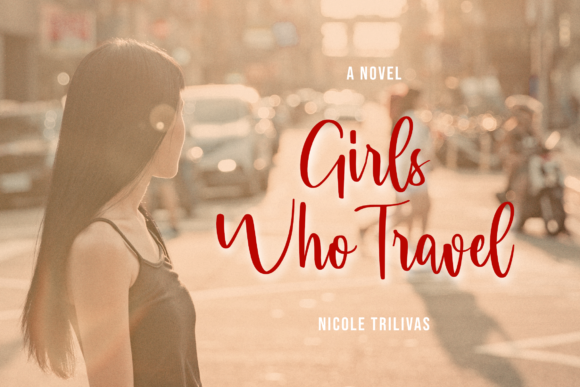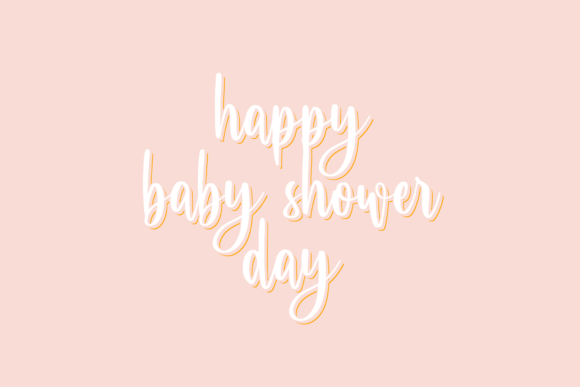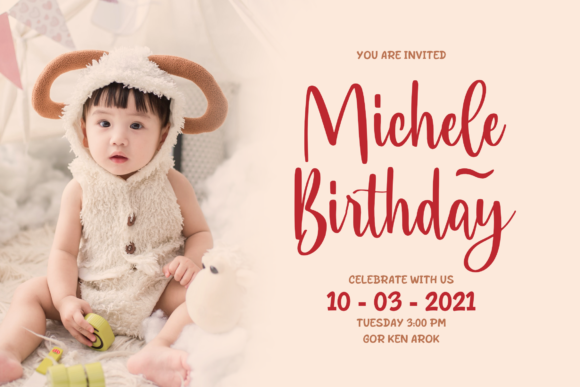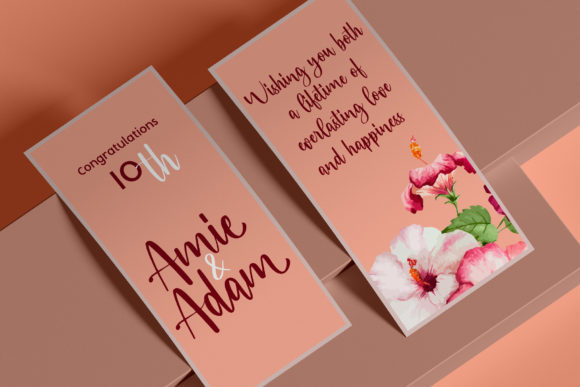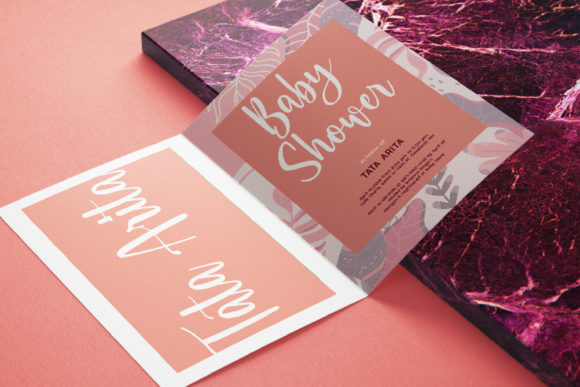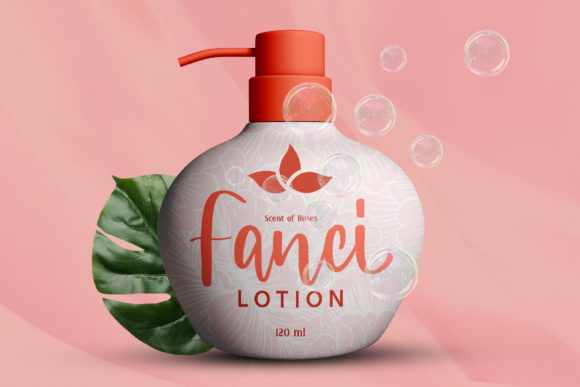
Baby Bday Font: The Perfect Addition to Your Crafty Projects
Are you a designer or crafter looking for a unique and elegant font to add a personal touch to your projects? Look no further than the Baby Bday Font! This beautiful handwritten font is perfect for a wide range of crafty ideas, from letterheads and titles to stationery and more.
What Makes Baby Bday Font So Special?
Baby Bday Font is an elegant and dainty handwritten font that features sweet and delicate swashes. Its original look is sure to appeal to anyone looking for a font that adds a touch of whimsy and charm to their projects. Whether you’re creating a custom birthday card, designing a logo for a new business, or crafting a unique invitation, Baby Bday Font is the perfect choice.
Key Features of Baby Bday Font
- Elegant and Dainty: Baby Bday Font features a delicate and elegant design that’s perfect for creating sophisticated and eye-catching projects.
- Sweet and Delicate Swashes: The font includes beautiful swashes that add a touch of whimsy and charm to your designs.
- Handwritten: Baby Bday Font is a handwritten font that adds a personal touch to your projects.
- Versatile: This font is perfect for a wide range of crafty ideas, from letterheads and titles to stationery and more.
How to Use Baby Bday Font in Your Projects
Baby Bday Font is easy to use and can be incorporated into a variety of projects. Here are a few ideas to get you started:
- Custom Birthday Cards: Use Baby Bday Font to create custom birthday cards that are truly special.
- Logo Design: This font is perfect for designing logos for businesses, events, or personal projects.
- Stationery: Add a touch of elegance to your stationery with Baby Bday Font.
- Invitations: Create unique and eye-catching invitations for weddings, baby showers, and other special events.
Tips for Getting the Most Out of Baby Bday Font
Here are a few tips for getting the most out of Baby Bday Font:
- Experiment with Different Sizes: Try using Baby Bday Font in different sizes to create visual interest and add emphasis to your designs.
- Combine with Other Fonts: Pair Baby Bday Font with other fonts to create a unique and eye-catching design.
- Use Swashes Creatively: Don’t be afraid to get creative with the swashes in Baby Bday Font. Use them to add a touch of whimsy and charm to your designs.